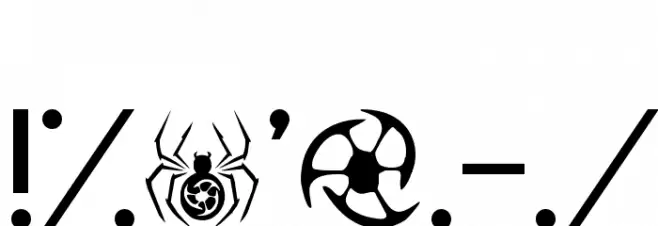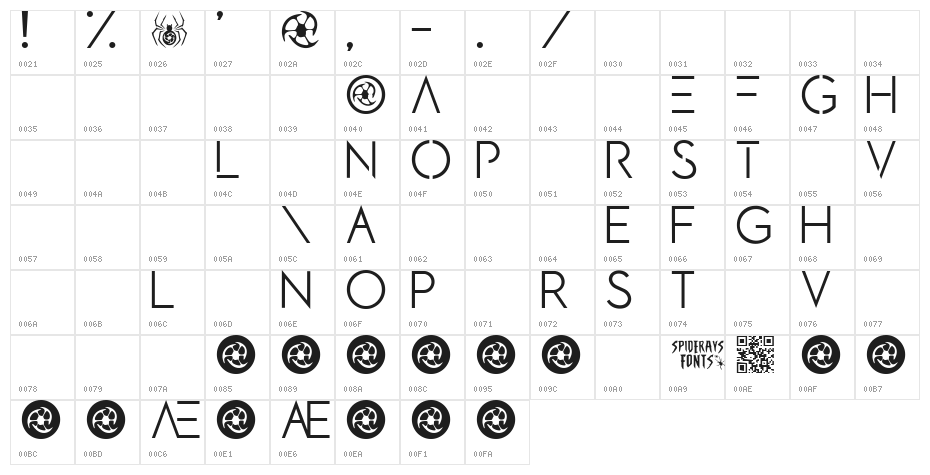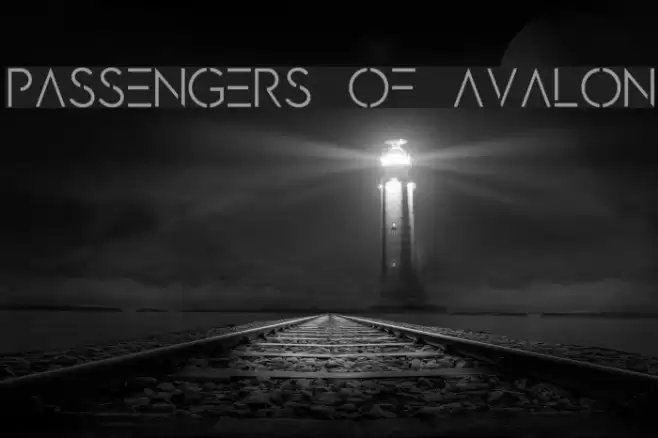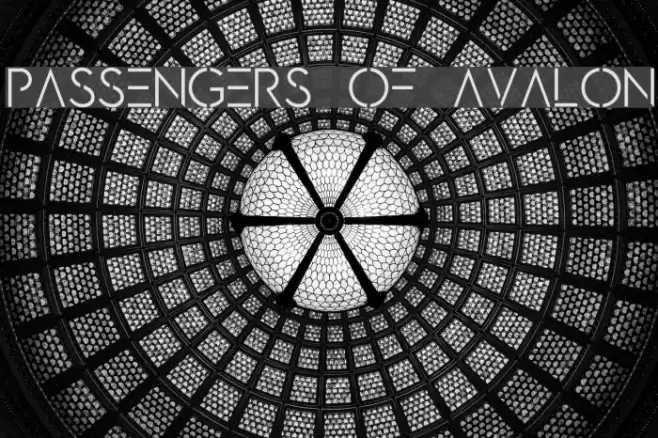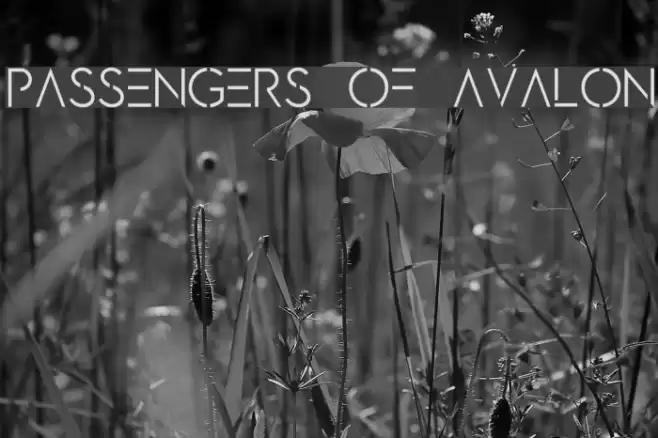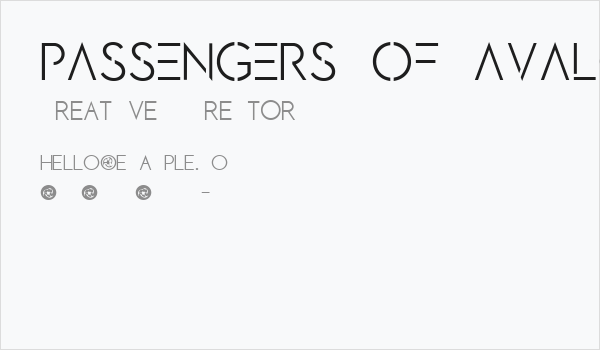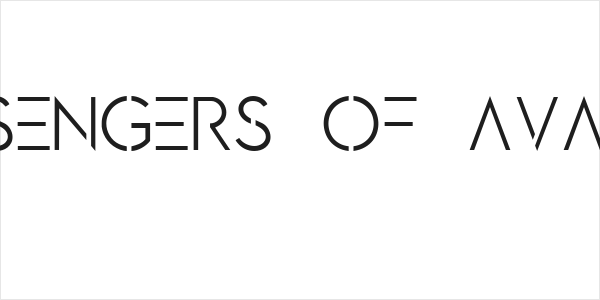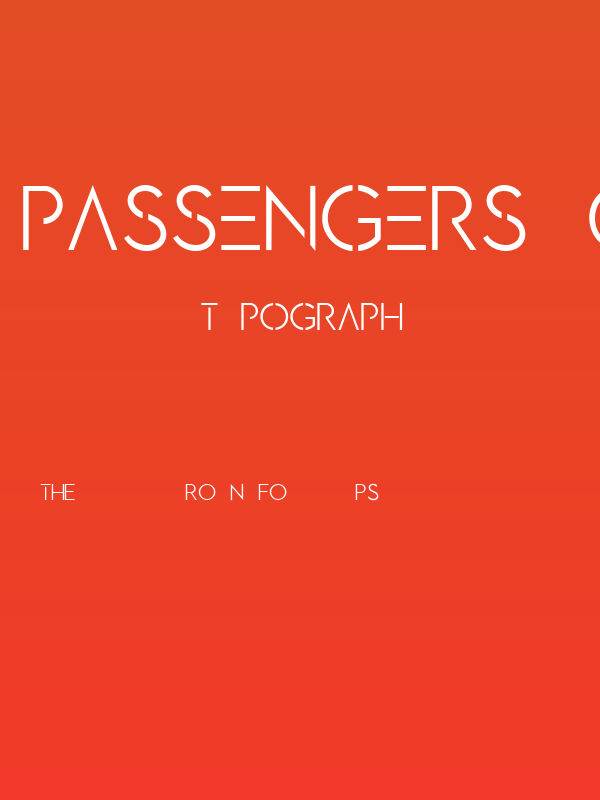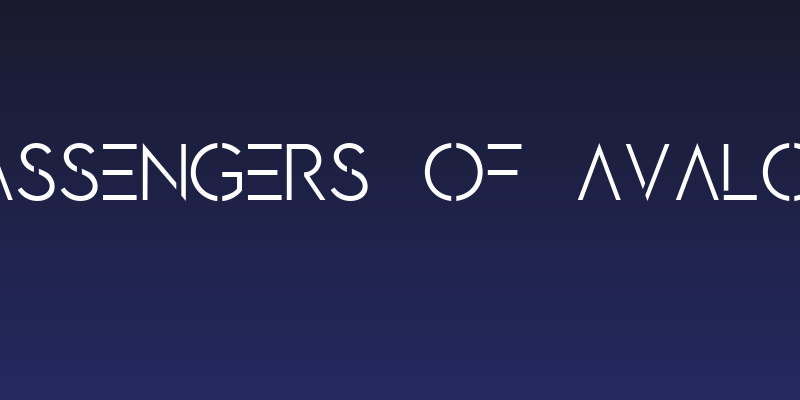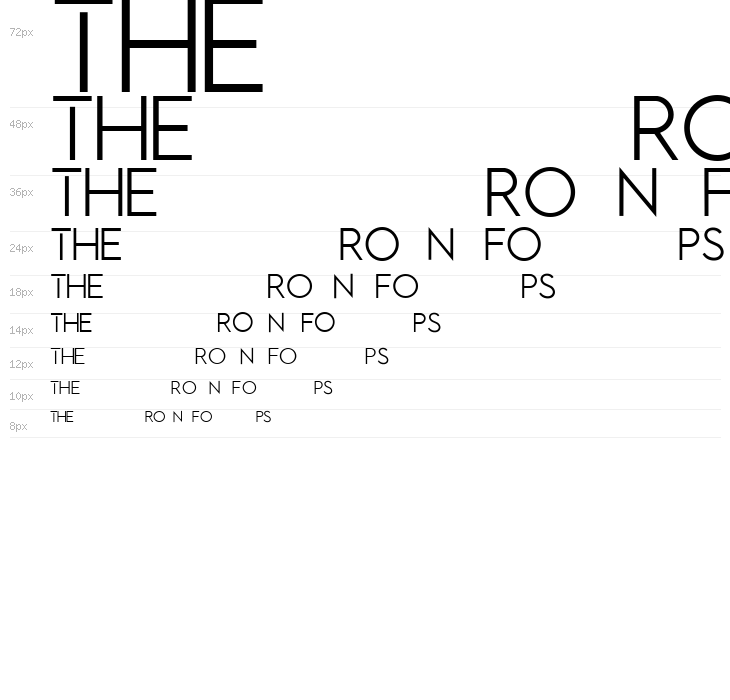
PASSENGERS OF AVALON Font
PASSENGERS OF AVALON Description
This font features a modern and geometric design, characterized by clean lines and a minimalist aesthetic. The uppercase letters are distinct with a futuristic touch, incorporating unique cuts and angles that give it a sleek appearance. The lowercase letters maintain a consistent style, complementing the uppercase with a similar geometric structure. Numbers are designed to match the overall theme, ensuring uniformity across all characters. Special characters are creatively crafted, adding an artistic flair to the font. The overall design is both innovative and versatile, making it suitable for a variety of creative projects.
| Proposed Projects | Ideal for branding, logos, posters, and digital media projects that require a contemporary and stylish look. |